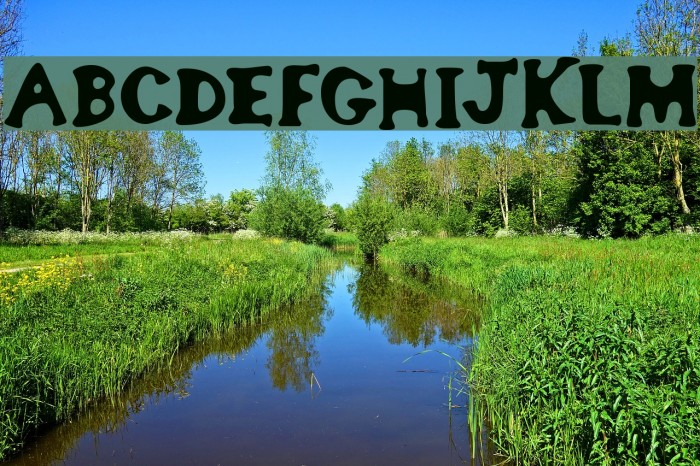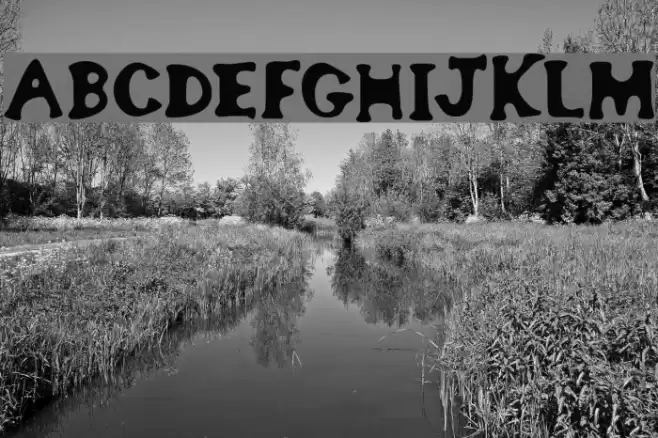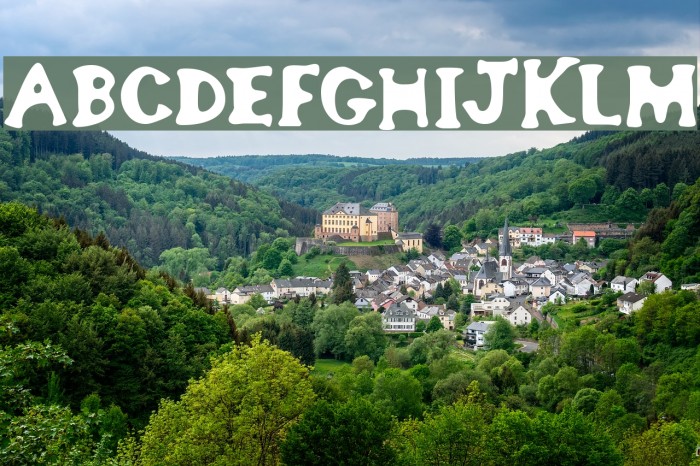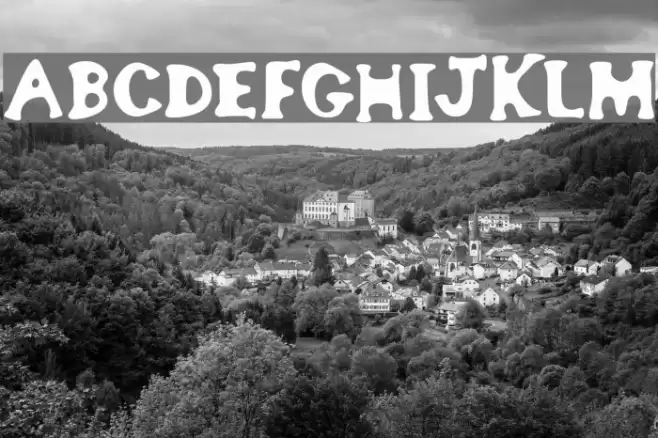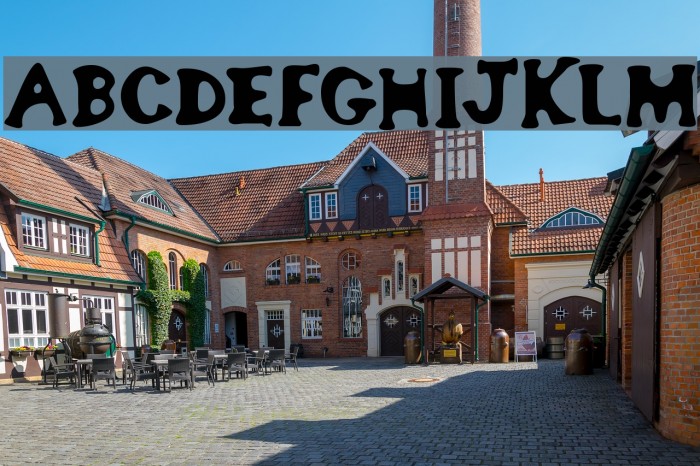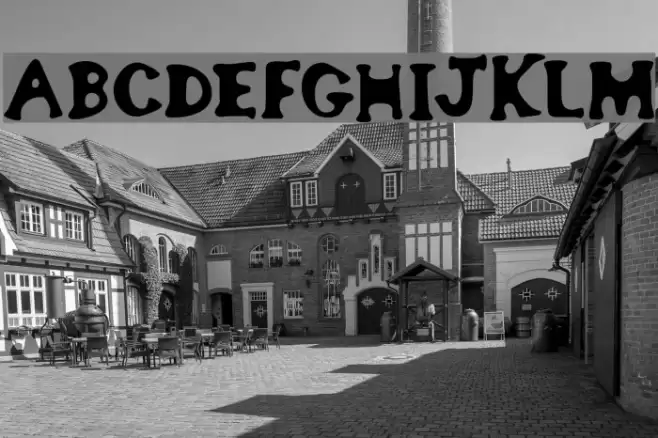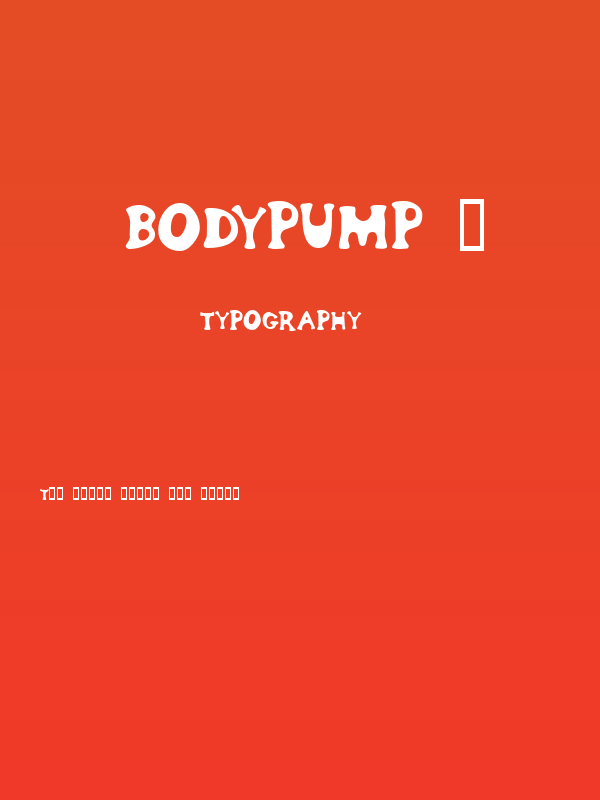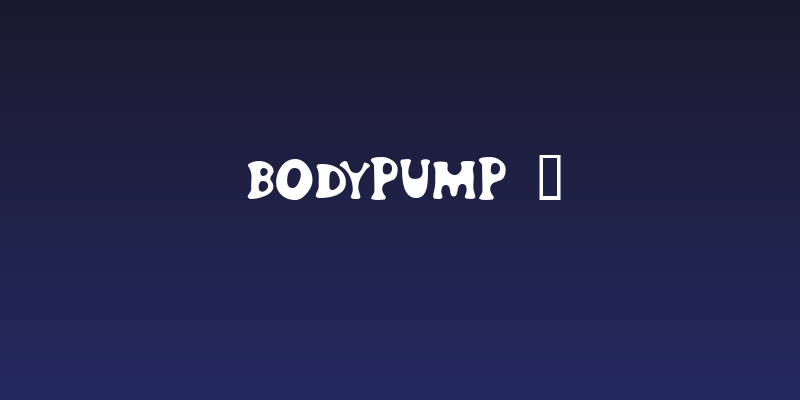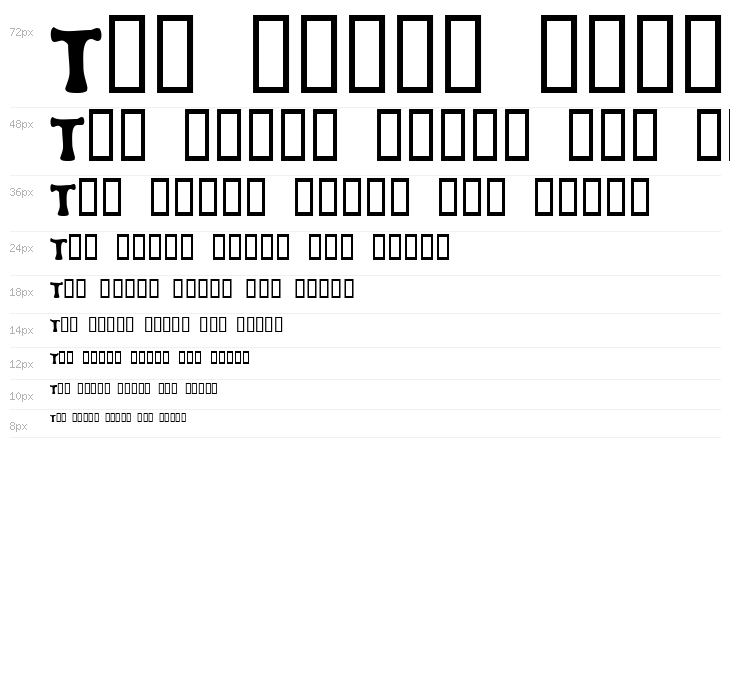
bodypump 1 Font
bodypump 1 Description
This font features a bold and playful design with exaggerated curves and a slightly whimsical appearance. The uppercase letters are characterized by thick strokes and rounded edges, giving them a friendly and approachable feel. The overall style is reminiscent of retro or cartoonish aesthetics, making it suitable for creative and informal projects. The font's unique personality is emphasized by its bold weight and decorative elements, which add a touch of fun and energy to any design.
| Overall Style | Playful, Retro, Decorative |
| Proposed Projects | Ideal for children's books, playful branding, posters, and creative invitations. |